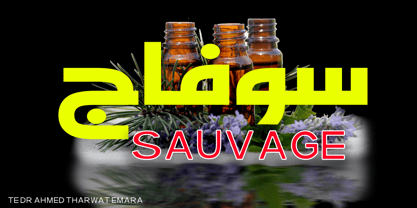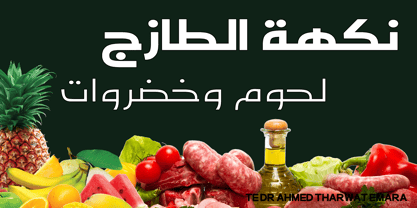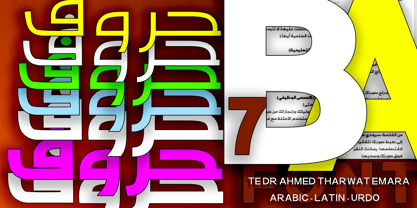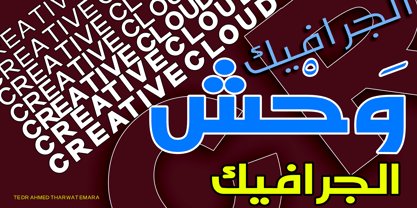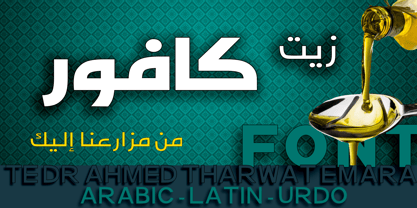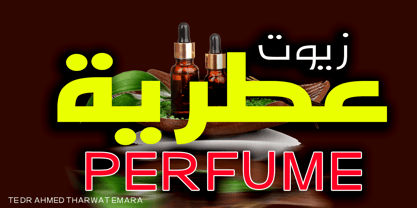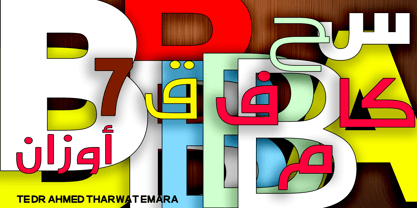
TE Dr Ahmed
by Tharwat Emara
The TE Dr Ahmed Font Family was designed by Tharwat Mohamed Emara and published by Tharwat Emara. TE Dr Ahmed contains 4 styles and family package options.
The TE DR AHMED font, crafted by renowned type designer Tharwat Emara, is a distinguished digital creation that blends elegance and functionality. Supporting both Arabic and Latin scripts, it’s ideal for multilingual projects requiring visual harmony. Its modern aesthetic, infused with classical Arabic calligraphy influences, suits both contemporary and traditional designs.
The font features clean, balanced lines ensuring legibility across sizes, from body text to headlines. Arabic characters reflect the beauty of calligraphy while maintaining simplicity for digital and print use. Latin characters complement their Arabic counterparts, ensuring visual coherence in bilingual designs.
TE DR AHMED is perfect for branding, advertisements, posters, and digital or print marketing materials, as well as websites and apps needing bilingual typography. Available in multiple weights, it offers flexibility for various design contexts.
Designed with modern techniques, the font is compatible with software like Adobe Illustrator and InDesign, as well as web platforms. It reflects Emara’s expertise in merging Arabic heritage with contemporary design needs, making it a valuable tool for designers aiming for excellence.
About Tharwat Emara
Tharwat Emara is an esteemed Egyptian calligrapher, renowned for his exceptional work in the field of Arabic calligraphy. He is recognized for his unique style and his ability to seamlessly blend tradition with innovation, resulting in a body of work that is both timeless and contemporary.Born in Egypt, Tharwat Emara developed a passion for calligraphy at a young age. He honed his skills through years of dedicated practice and study, eventually becoming one of the most prominent calligraphers in the country. His work has been exhibited around the world, and his fonts have been used in a variety of media, including books, advertisements, and logos.What sets Tharwat Emara apart from other calligraphers is his ability to create fonts that are both beautiful and functional. He understands that calligraphy is not just an art form, but a means of communication, and his fonts reflect this understanding. They are clear, legible, and easy to read, while also retaining the aesthetic beauty that is so important to the art of calligraphy.Tharwat Emara's fonts are also notable for their versatility. He has created fonts that are suitable for a wide range of applications, from elegant wedding invitations to bold, modern advertising campaigns. Whether you're looking for a font that is classic and timeless or something that is cutting-edge and contemporary, Tharwat Emara has a font that will suit your needs. One of the things that makes Tharwat Emara's fonts so special is the attention to detail that he puts into every design. He understands that each letter is a work of art in itself, and he approaches each design with the same level of care and precision that he would if he were creating a standalone piece of calligraphy. This attention to detail ensures that each font is not only beautiful, but also functional and easy to use. In addition to his work as a calligrapher, Tharwat Emara is also an accomplished teacher. He has taught calligraphy to students around the world, and his workshops are highly sought-after by both beginners and experienced calligraphers. His approach to teaching is based on his belief that calligraphy is a discipline that requires patience, dedication, and a willingness to learn from both success and failure. He encourages his students to explore their creativity and to find their own unique style, while also providing them with the technical skills they need to create beautiful calligraphy.If you're looking for a calligrapher who combines tradition with innovation, who creates fonts that are both beautiful and functional, and who approaches his work with the utmost care and precision, then Tharwat Emara is the perfect choice. His fonts are among the most distinctive and recognizable in the world of Arabic calligraphy, and they are sure to add a touch of elegance and sophistication to any project.